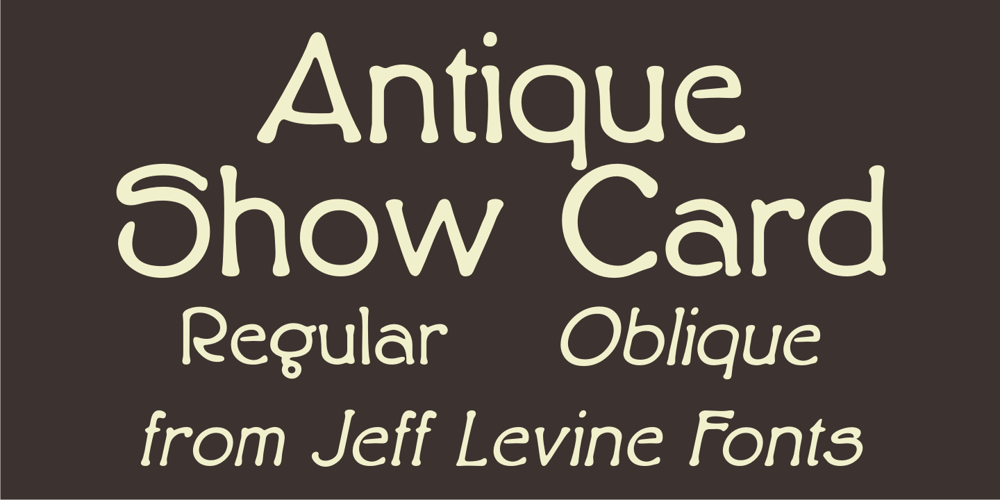
Antique Show Card JNL Font Family was designed by Jeff Levine and published by Jeff Levine. Antique Show Card JNL contains 2 styles and family package options. The very first Speedball-Lettering Book was published in 1915, and within its pages was a rough-hewn example of lettering with the name “Rapid Sho-Card Style”. The design is now available as Antique Show Card JNL, in both regular and oblique versions.